Cool Fonts Copy and Paste for Every Platform
In the digital age, your online presence is your brand, and the typography you choose for your profiles, bios, and posts speaks volumes before a single word is read. Whether you are aiming for a minimalist look on professional networks or a bold, decorative vibe for your gaming handles, the ability to modify text style is essential. Using cool fonts copy and paste methods has become the go-to solution for creators who want to break free from the limitations of standard system typefaces without needing complex design software.
Why Use Cool Fonts Copy and Paste Tools?
The primary reason to use these tools is versatility. Most social media platforms and messaging apps rely on a standardized set of Unicode characters that do not allow for native font changes. By using a generator, you are actually utilizing different sets of Unicode symbols that mimic various typography styles. Because these are technically characters rather than images or proprietary files, they display perfectly across mobile and desktop devices.
Personalizing Your Digital Presence
When you integrate custom text into your digital toolkit, you move beyond the “default” look that every other user has. A well-placed decorative header or a sharp, clean serif style for your social bio can instantly signal your personality or brand identity.
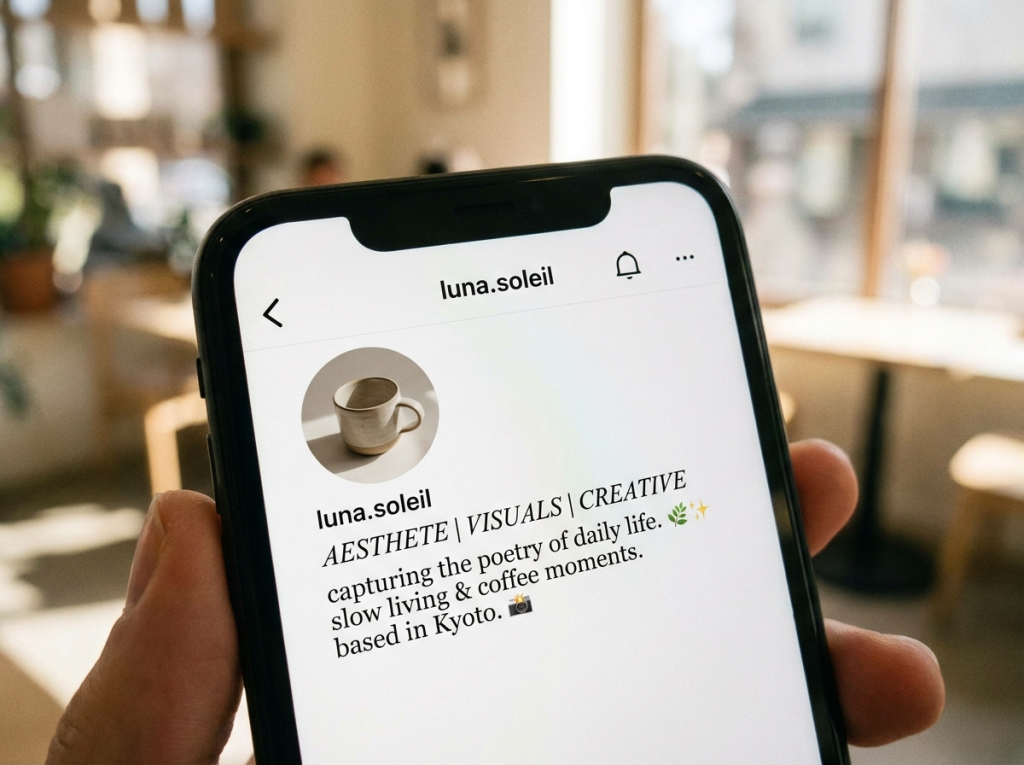
How to Implement Styles Effectively
Integration is a straightforward process. Once you select the desired text, you simply copy the generated sequence and paste it into your target field. To ensure the best experience for your users, follow these best practices:
- Prioritize Readability: Avoid overly ornate styles for long-form content.
- Test on Mobile: Always verify how the text renders on a small screen.
- Stay Consistent: Don’t mix four different styles in one bio.
Elevating Your Social Media Impact
The visual hierarchy of your profiles matters. By using bolded or unique text styles for your Call-to-Action (CTA) sections, you draw the eye exactly where you want it to go. Whether you are directing followers to a new project or simply highlighting your current status, using distinct typography serves as a subtle, high-impact directional cue.
As we move further into 2026, the demand for unique, custom-branded text continues to grow. Platforms are becoming more competitive, and the “human” touch in your design choices is what will set your content apart from the noise. By keeping your layout clean and your text purposeful, you ensure that your unique identity remains front and center for your entire audience.